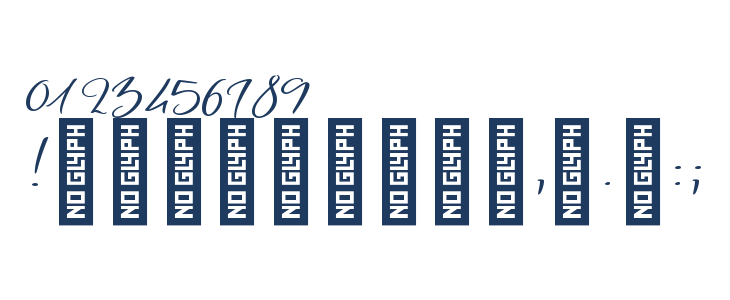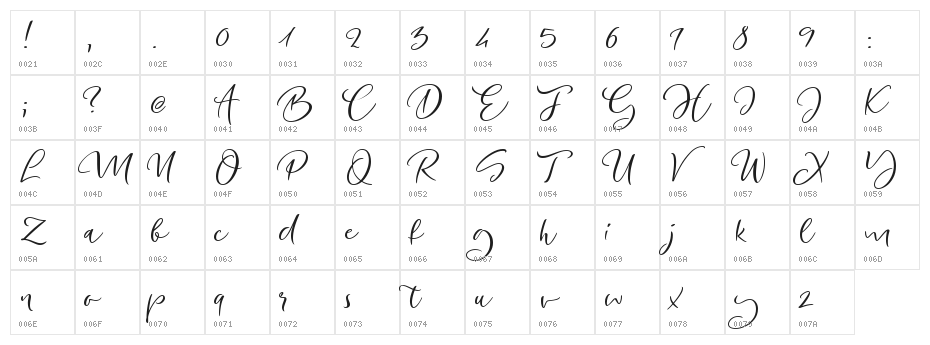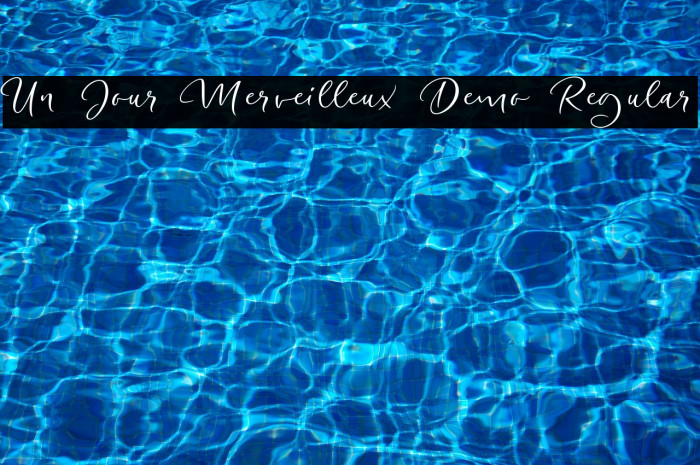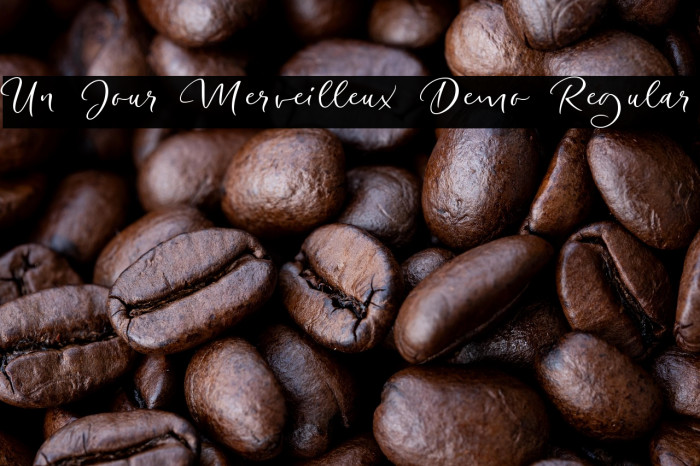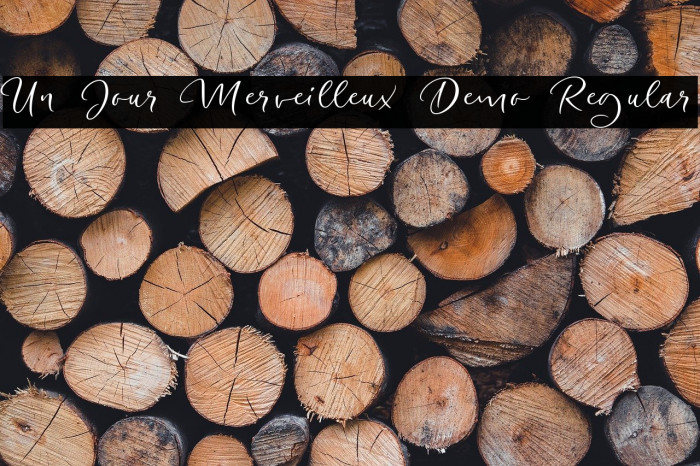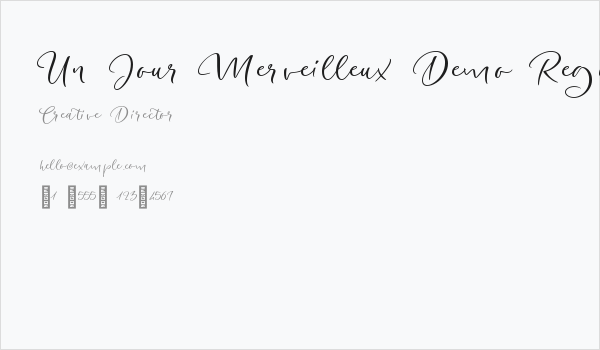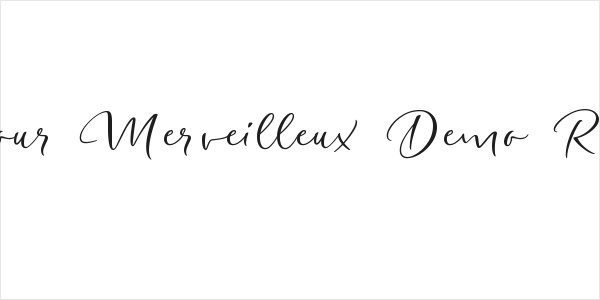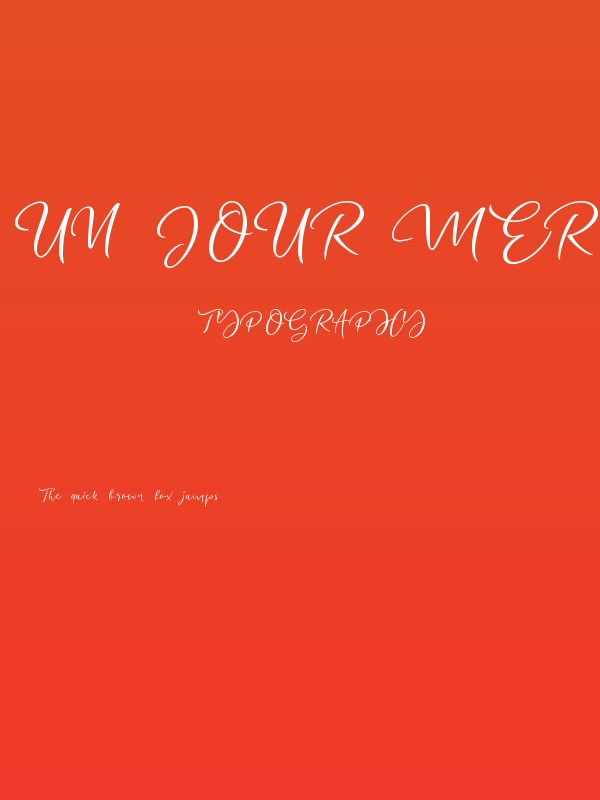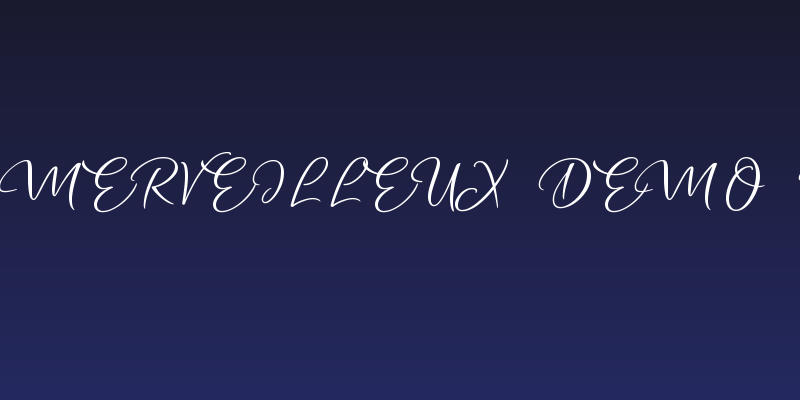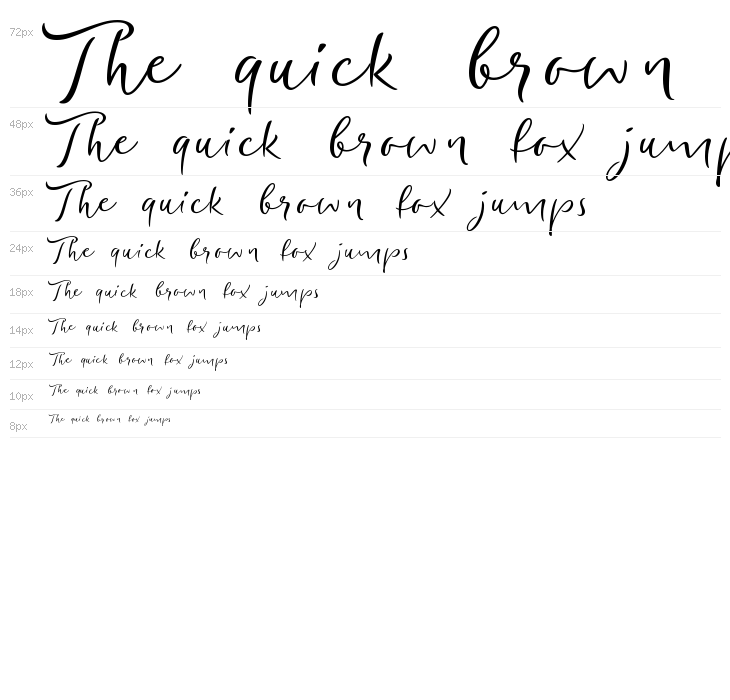
Un Jour Merveilleux Demo Regular Font
Un Jour Merveilleux Demo Regular Description
This elegant script font features fluid, cursive strokes that convey a sense of sophistication and grace. The uppercase letters are characterized by their sweeping curves and loops, while the lowercase letters maintain a consistent flow with a slightly more restrained style. The numerals and special characters integrate seamlessly, maintaining the font's overall aesthetic. The design is reminiscent of traditional calligraphy, yet it incorporates modern elements that make it versatile for various applications. The strokes vary in thickness, adding a dynamic contrast that enhances readability while preserving the artistic flair.
| Overall Style | Elegant, Modern |
| Proposed Projects | Ideal for wedding invitations, elegant branding, personal stationery, and artistic projects. |